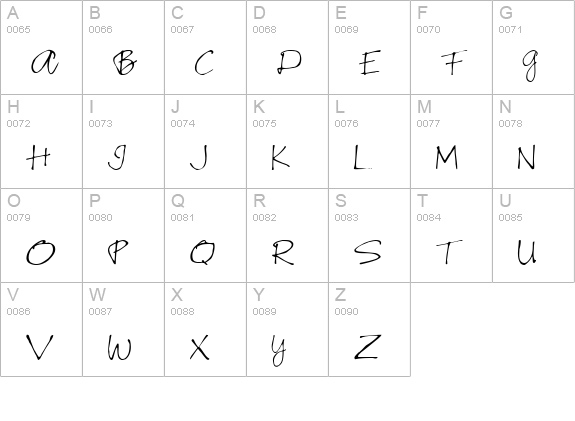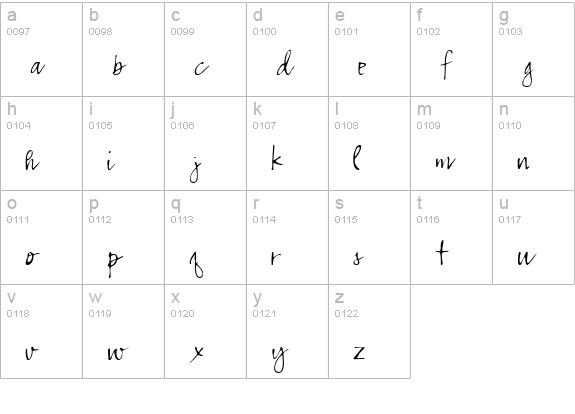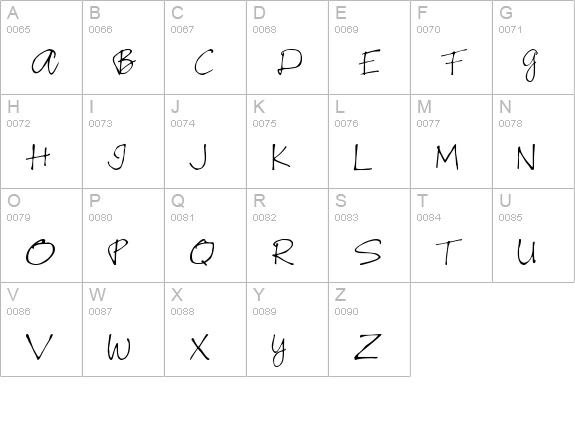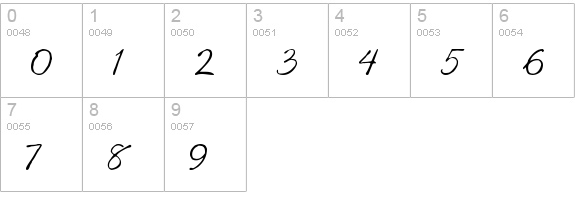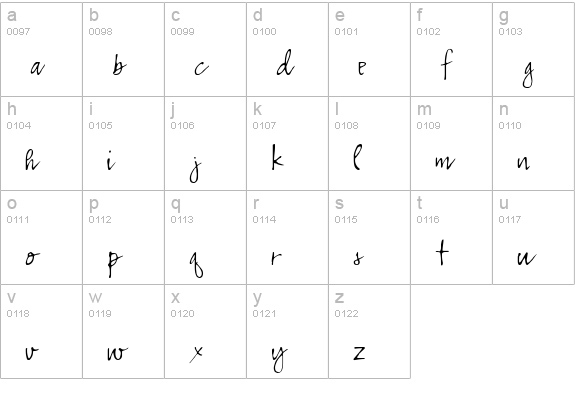
Kidnapper Font Details
Introducing Kidnapper font, a bold and captivating typeface that exudes a sense of mystery and intrigue. With its unique and edgy design, Kidnapper font is perfect for adding a touch of suspense to your projects. This versatile font can be used for various design purposes, from movie posters to book covers, ensuring that your work stands out from the crowd. What sets Kidnapper font apart is not only its striking appearance but also the fact that it is available for free download at FontsMarket.com. Now you can unleash your creativity and make a bold statement without having to worry about breaking the bank. Don't miss out on the opportunity to add this one-of-a-kind font to your collection and take your designs to the next level. Download Kidnapper font today and let your imagination run wild!